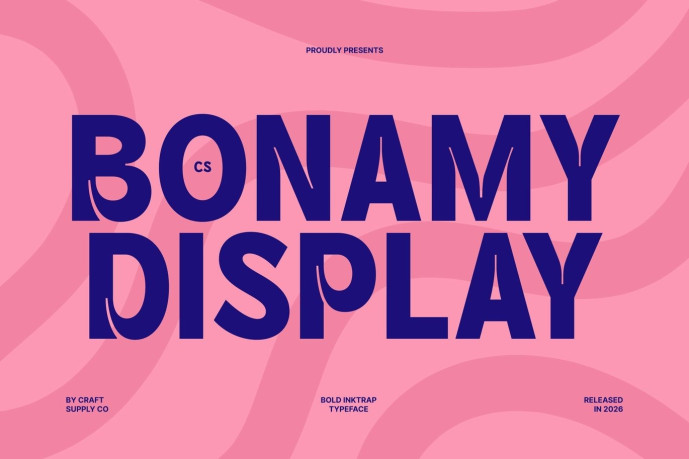
Bonamy – Inktrap Font
CS Bonamy – Bold Display Sans Serif Font: Where Playful Inktraps Meet Urban Energy Wide Geometric Letterforms with Expressive Character This is a bold display sans serif font featuring wide geometric letterforms, rounded corners, and open counters that create a confident yet approachable appearance. Its extra-bold structure delivers strong visual impact, while the balanced proportions ensure clarity and versatility in large display settings. The result is typography that feels energetic, modern, and full of personality.
Playful Inktraps with Contemporary Style This font transforms a functional typographic feature into a defining visual element. These distinctive cut-ins add rhythm, depth, and uniqueness to each character while enhancing readability. Combined with its rounded geometry, the inktraps give the font a playful, modern aesthetic that feels fresh and memorable.
Dynamic Typography for Creative Expression This font creates a visual identity that balances strength with creativity. Its expressive forms communicate confidence, movement, and youthful energy, making it an excellent choice for brands and projects that seek a vibrant contemporary presence.
Perfect for Posters and Bold Creative Projects Perfect for urban branding, startup logos, collections, posters, packaging, editorial headlines, advertising campaigns, social media graphics, and contemporary visual identities. Its bold geometric structure, playful inktrap details, and energetic personality make it ideal for projects that communicate originality, confidence, and modern creative style.